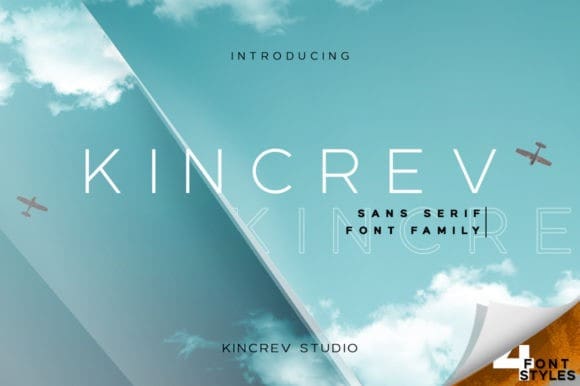
Kincrev Font
Kincrev Font is a minimal, yet elegant sans serif font. Suitable to a wide variety of designs due to its neat and simple style, this font has the potential to become your favorite go-to font, no matter the occasion!